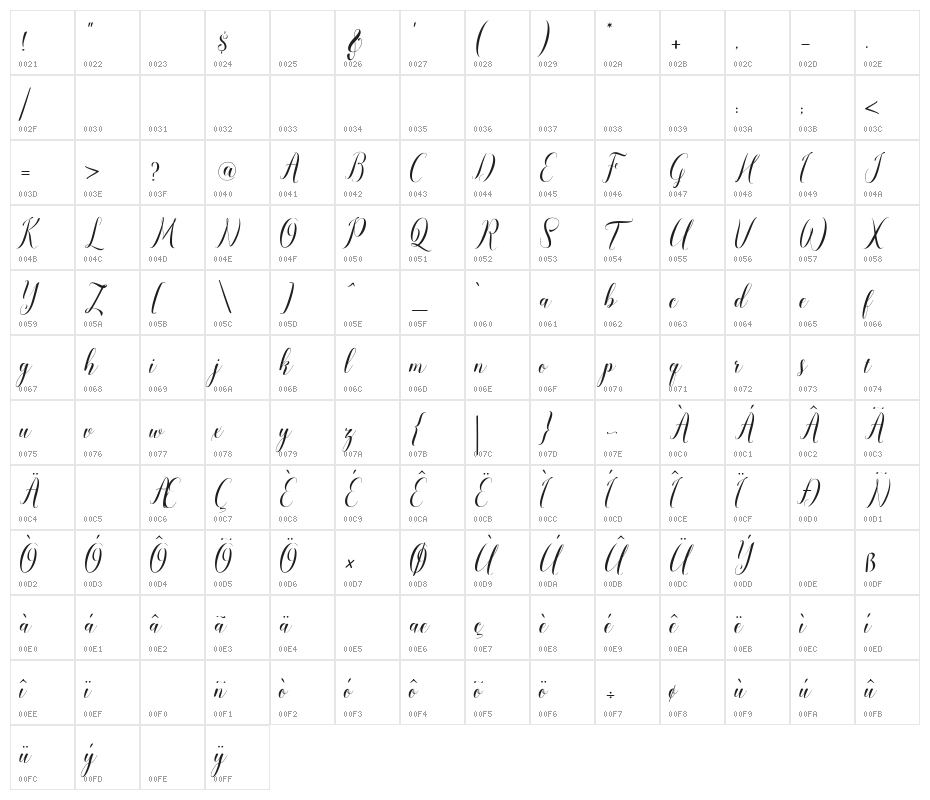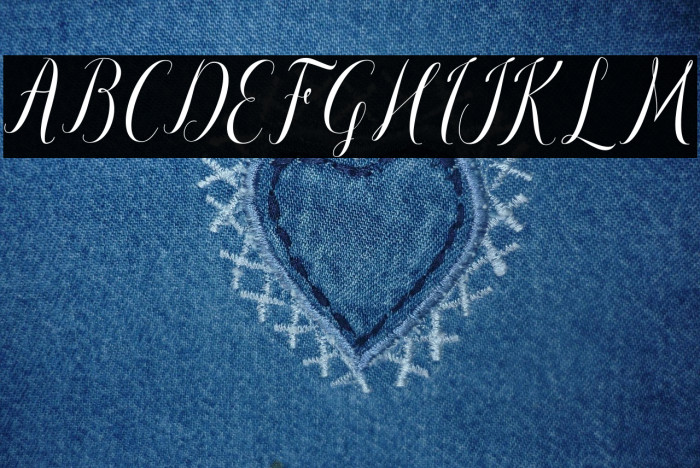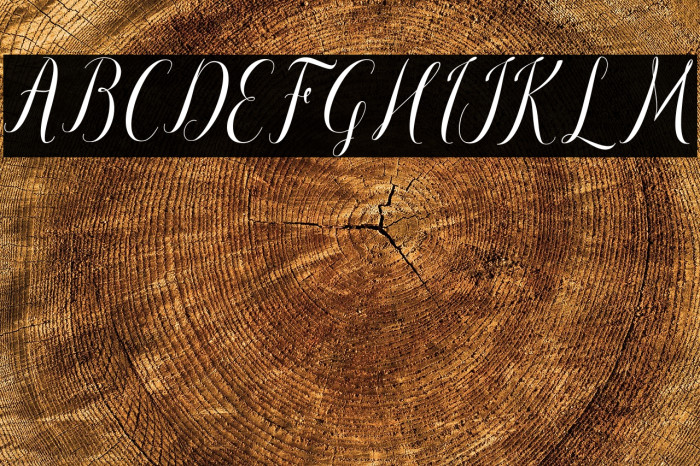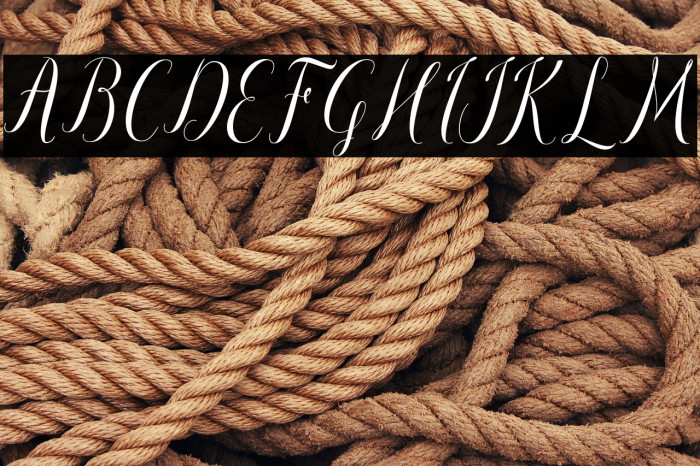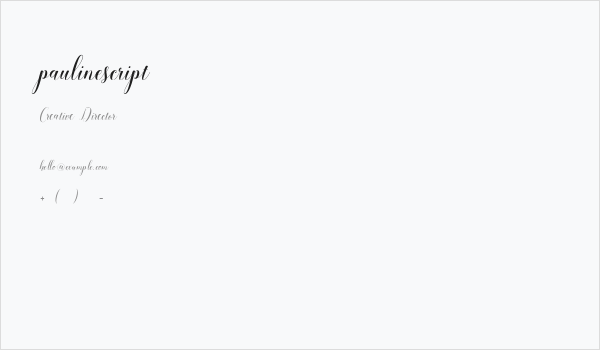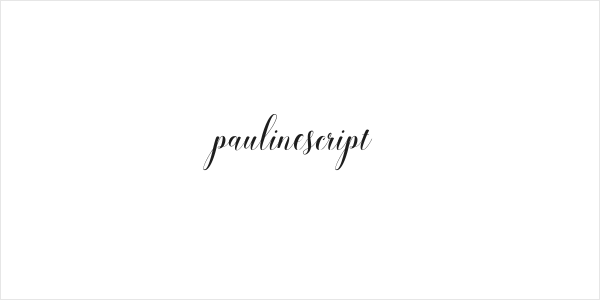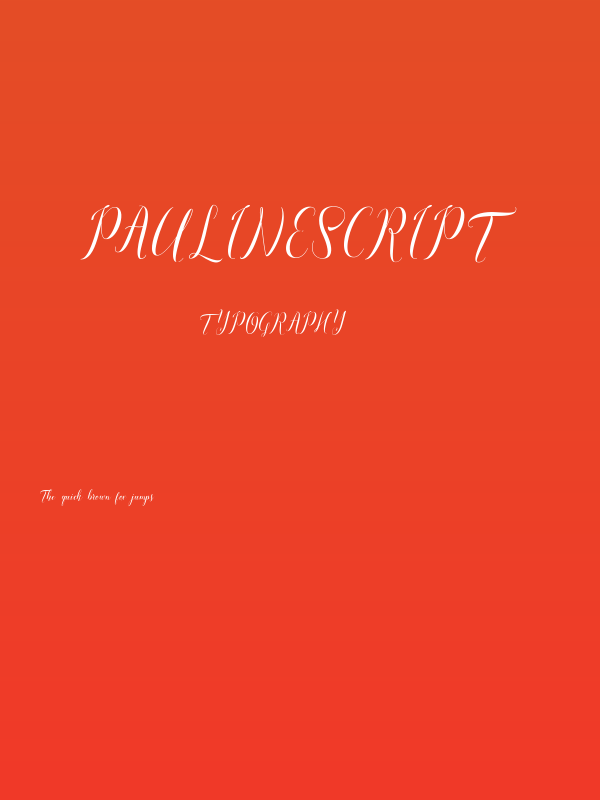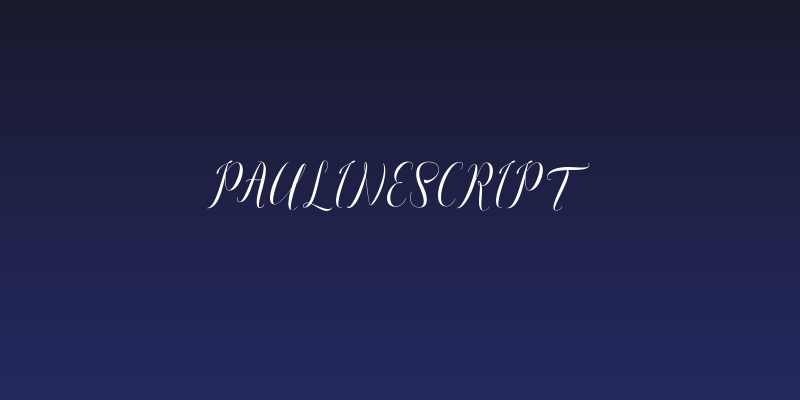
paulinescript Font
paulinescript Description
This elegant script font features flowing, cursive letterforms with a refined and sophisticated appearance. The uppercase letters are tall and graceful, with sweeping curves and delicate flourishes that add a touch of elegance. The lowercase letters maintain a consistent style, with smooth connections and a fluid motion that enhances readability. The font includes a variety of special characters, such as punctuation and symbols, which are designed with the same attention to detail. The overall design is reminiscent of classic calligraphy, making it suitable for formal and decorative applications.
| Overall Style | Classic |
| Use Case | Logos, Invitations, Decorative text |
| Proposed Projects | Ideal for wedding invitations, elegant branding, greeting cards, and formal event programs. |